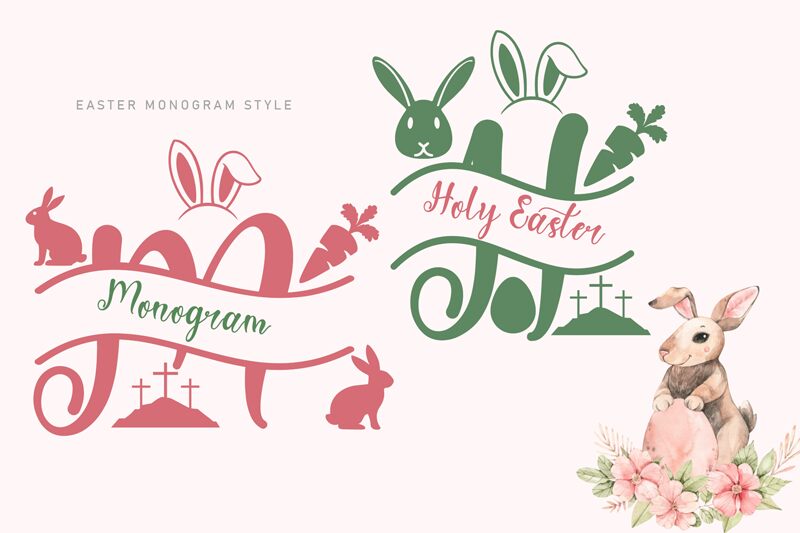
Holy Easter Monogram font family by Yoga Letter is an Easter-themed font family with glyphs and symbols that best match your needs for holiday-related uses most specifically Easter. The font family has beautiful Easter Symbols that work best when combined with the letter fonts of this family.
The perfect and most specific usage for this holiday font family is for creating Easter Cards and invites for friends and family, or for work-related themes during the Easter holiday season. You can however experiment and find creative ways of using the free font for some other different holidays in the year.